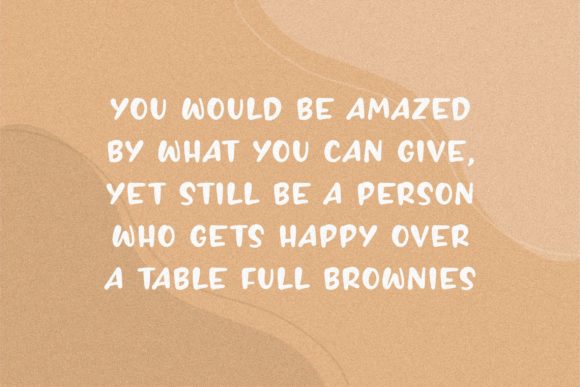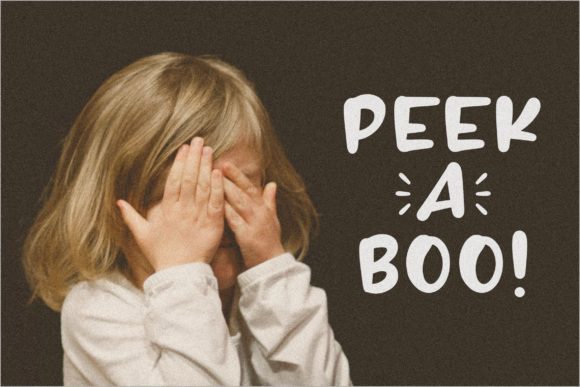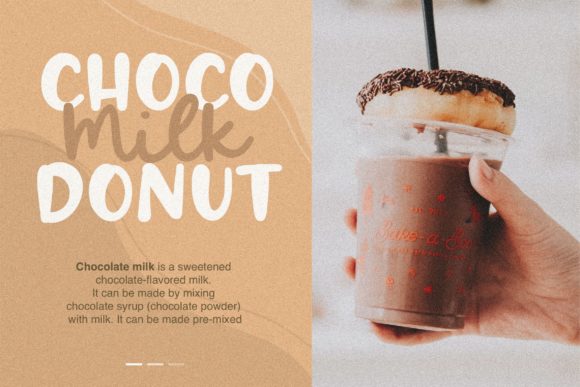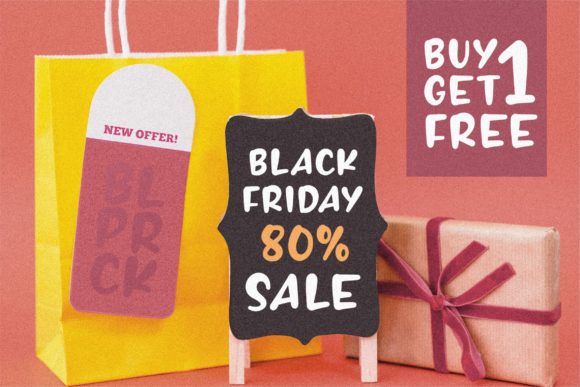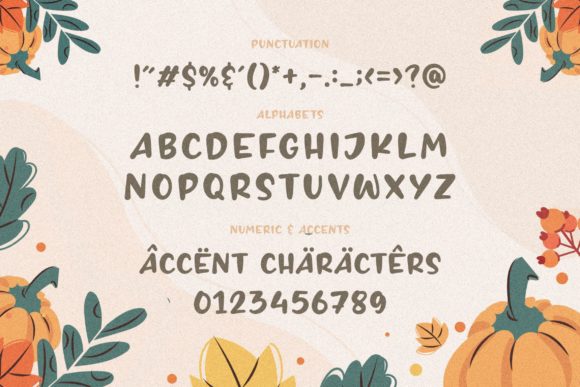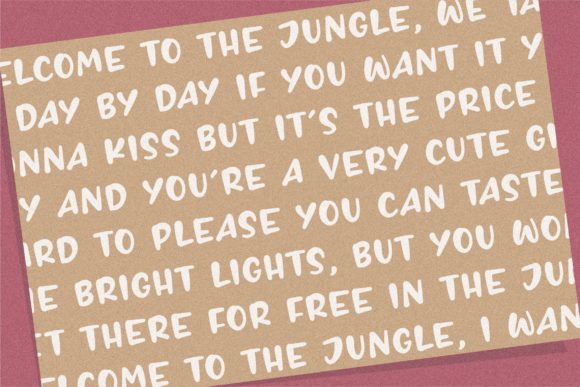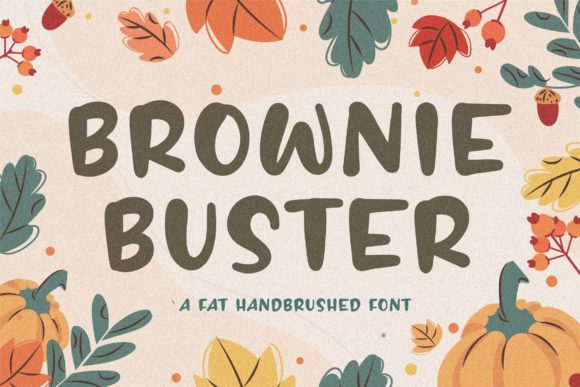
Brownie Buster Font: The Perfect Addition to Your Design Projects
Are you a designer or crafter looking for a unique and eye-catching font to elevate your projects? Look no further than the Brownie Buster Font. This fat hand-brushed font is perfect for a variety of applications, from product packaging and branding projects to magazines, social media, and wedding designs.
What is Brownie Buster Font?
Brownie Buster Font is a hand-brushed font that boasts a distinctive, organic look. Its bold and chunky strokes give it a playful and attention-grabbing feel, making it perfect for designers who want to add a personal touch to their work. The font’s unique texture and imperfections give it a humanized feel that sets it apart from more traditional fonts.
Uses for Brownie Buster Font
One of the best things about Brownie Buster Font is its versatility. Here are just a few examples of how you can use it in your design projects:
- Product Packaging: Add a personal touch to your product packaging with Brownie Buster Font. Its bold and playful feel makes it perfect for labels, tags, and other packaging materials.
- Branding Projects: Use Brownie Buster Font to create unique and eye-catching branding materials, such as business cards, brochures, and flyers.
- Magazines and Publications: Add some personality to your magazine or publication with Brownie Buster Font. Its hand-brushed texture gives it a distinctive look that’s sure to stand out.
- Social Media: Use Brownie Buster Font to create engaging social media graphics, such as posters, banners, and ads.
- Wedding Designs: Add a touch of whimsy to your wedding designs, such as invitations, programs, and signage, with Brownie Buster Font.
Why Choose Brownie Buster Font?
So why should you choose Brownie Buster Font for your design projects? Here are just a few reasons:
- Unique and Eye-Catching: Brownie Buster Font has a distinctive look that’s sure to grab attention.
- Versatile: Use Brownie Buster Font for a wide range of design projects, from packaging to branding to social media.
- Easy to Read: Despite its bold and chunky texture, Brownie Buster Font is easy to read, even at smaller sizes.
- High-Quality: Brownie Buster Font is a high-quality font that’s designed to deliver crisp and clean lines, even at large sizes.
Tips for Using Brownie Buster Font
Here are a few tips for getting the most out of Brownie Buster Font:
- Use it as a Headline Font: Brownie Buster Font is perfect for headlines and titles, where its bold and playful feel can really shine.
- Pair it with a Simpler Font: For body text, pair Brownie Buster Font with a simpler font to create a striking contrast.
- Experiment with Colors: Brownie Buster Font looks great in a wide range of colors, so don’t be afraid to experiment and find the perfect hue for your design.
Brownie Buster Font is a unique and versatile font that’s perfect for designers and crafters looking to add a personal touch to their projects. Its bold and playful feel makes it perfect for a wide range of applications, from product packaging to social media graphics. With its high-quality design and ease of use, Brownie Buster Font is sure to become a go-to font in your design arsenal.